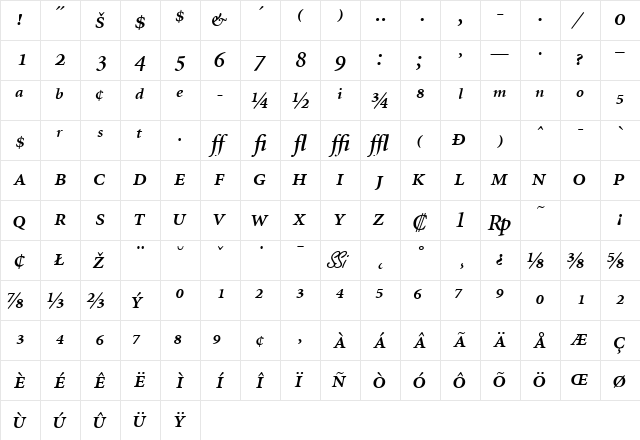
AtlantixProSSK BoldItalic
Design Context for AtlantixProSSK Typeface
AtlantixProSSK is a composed and adaptable typeface that performs quietly and consistently across a wide range of design contexts. The slanted form adds forward momentum and visual energy. Its bold stroke weight gives it real presence on the page.
Pro Tip: Use AtlantixProSSK for emphasis, pull quotes, and subheadings where its slanted energy can add rhythm to the layout.